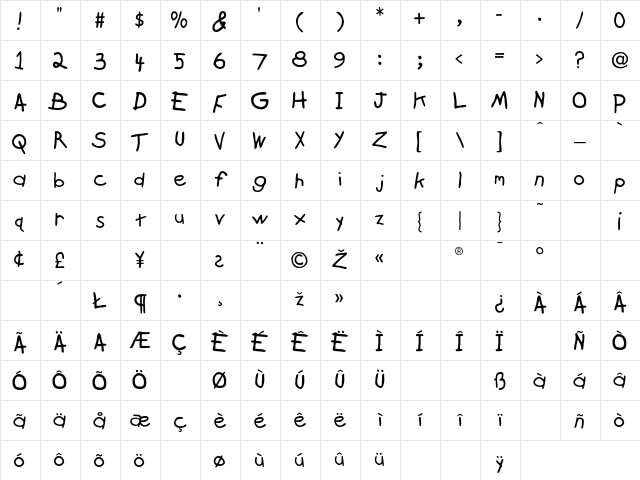
Kidprint Regular Free Font
Kidprint Regular
Design Context for Kidprint
Kidprint is a composed and adaptable typeface that performs quietly and consistently across a wide range of design contexts.